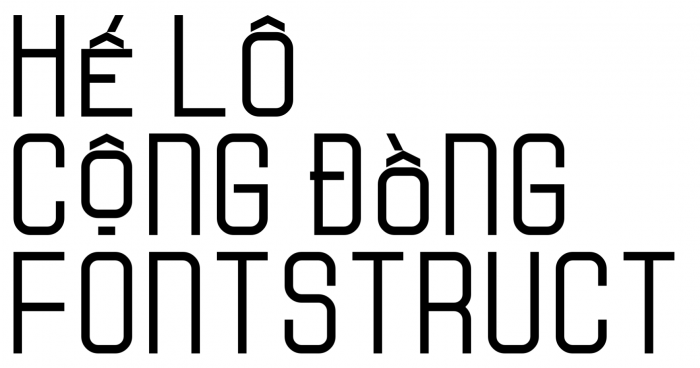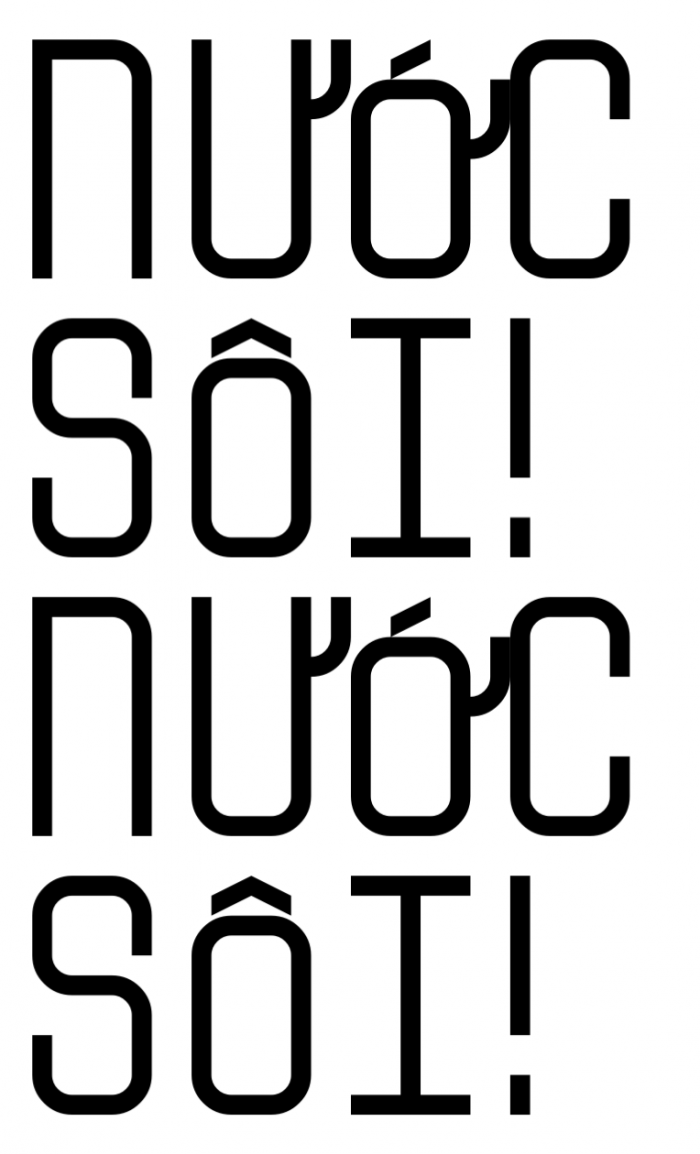
• Stuck - my new font, it doesn't look much until the accent: The letters with the signor are forced down to be as high as the other unsenced letters which will make the flow more lively. At the same time, the sentences will also have a rhythm that makes us feel like we are listening to a real sentence instead of a unique line.
My inspiration for this font is from the branding font of BAEMIN Vietnam
All glyphs in this font have a height of 6 pixels, no less, no more.
The "~" is for containing the Vietnamese diacritics
Translation: Hello FontStruct Community
My new font: KVN-Stuck, it looks normal until the accents appear, any glyphs with accents will all be forced down to have the same height as the normal glyphs.
Another sample
(Translating: Boiling Water! Boiling Water!)